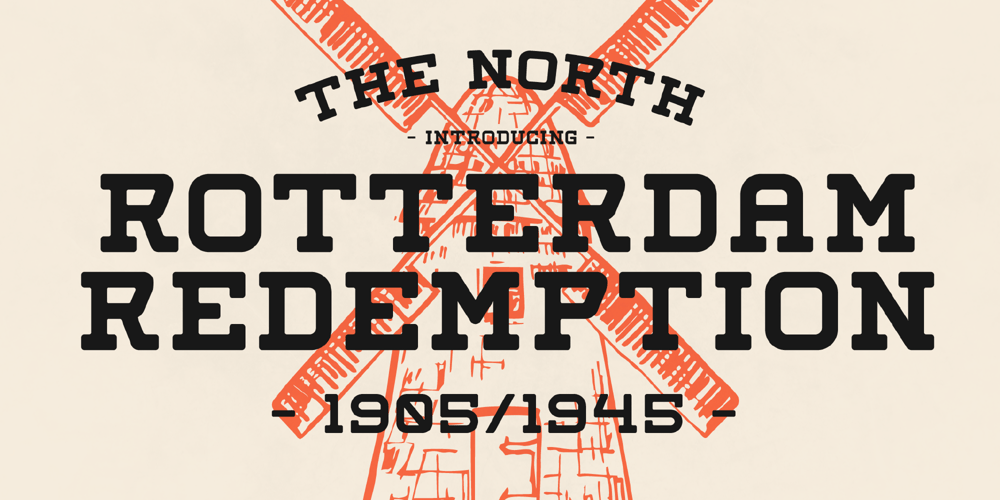
Rotterdam Redemption Font Family was designed by Heru Utama Putra and published by Letterena Studios. Rotterdam Redemption contains 2 styles and family package options. Rotterdam Redemption is a beautiful display font with a unique and modern look. It is perfect for elegant and luxury logos, book and movie titles, fashion brands, magazines, clothes, lettering, quotes, and many more. Add it now to your fonts’ gallery, and it will make any of your designs stand out!** Uppercase